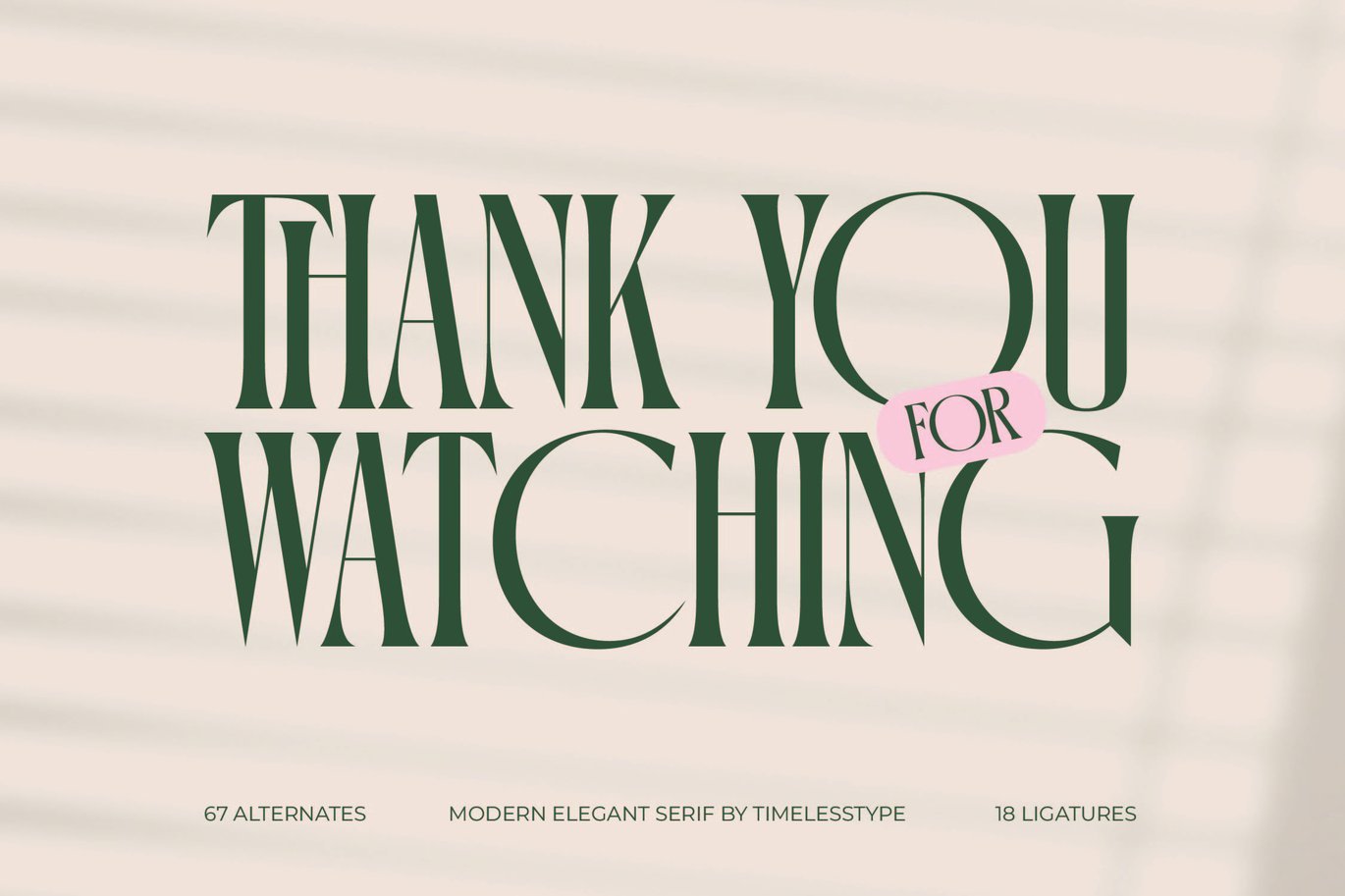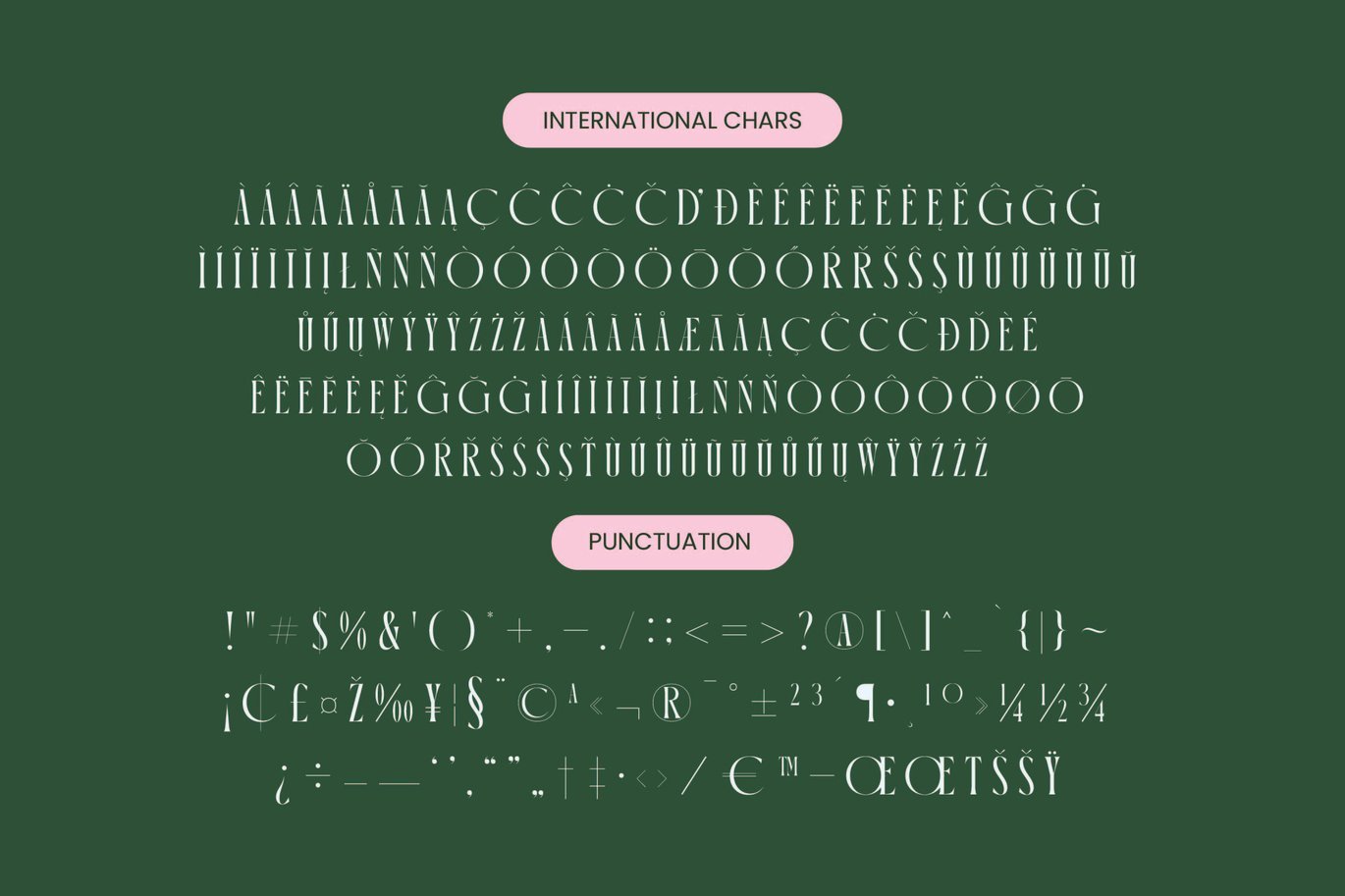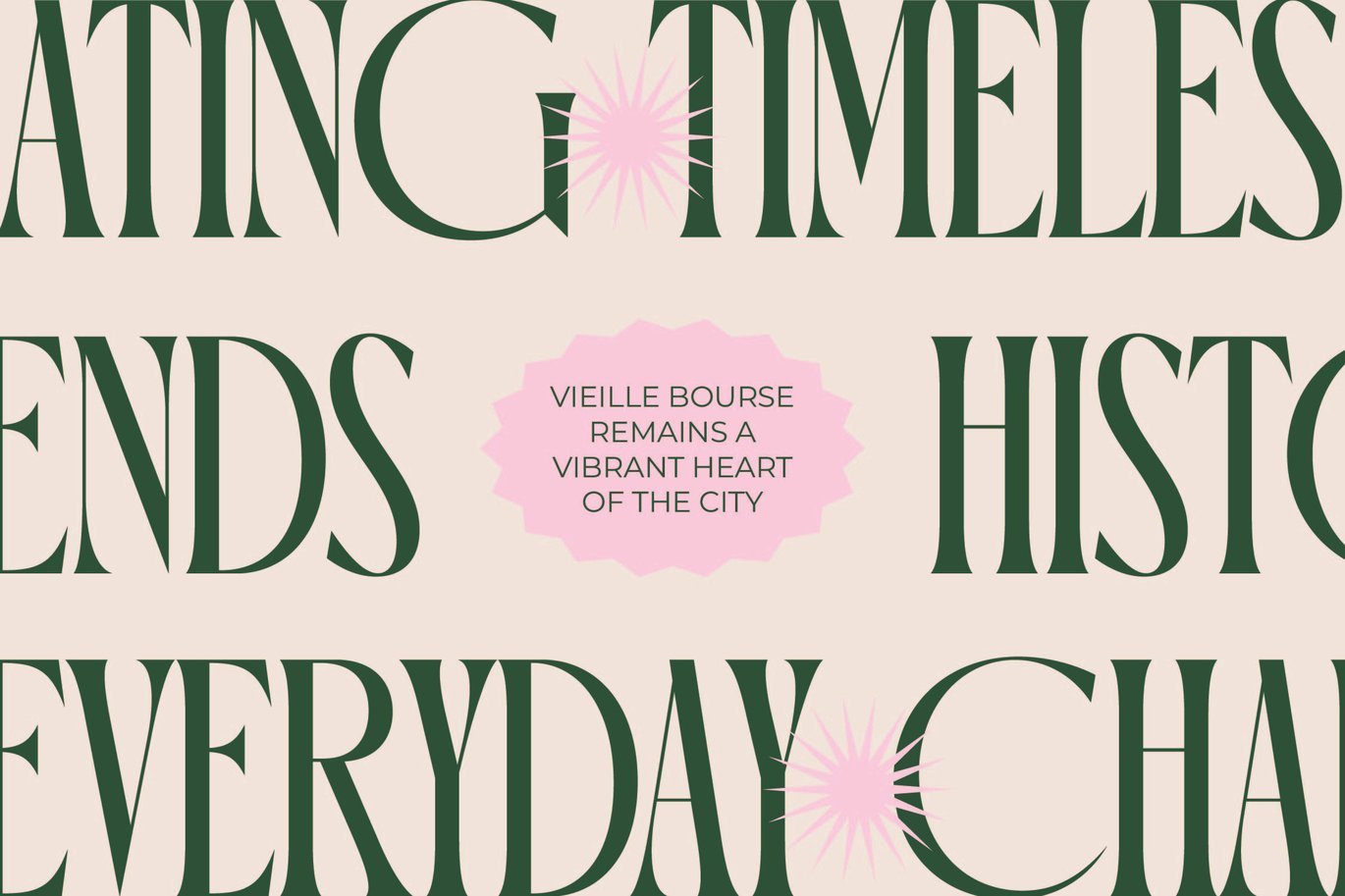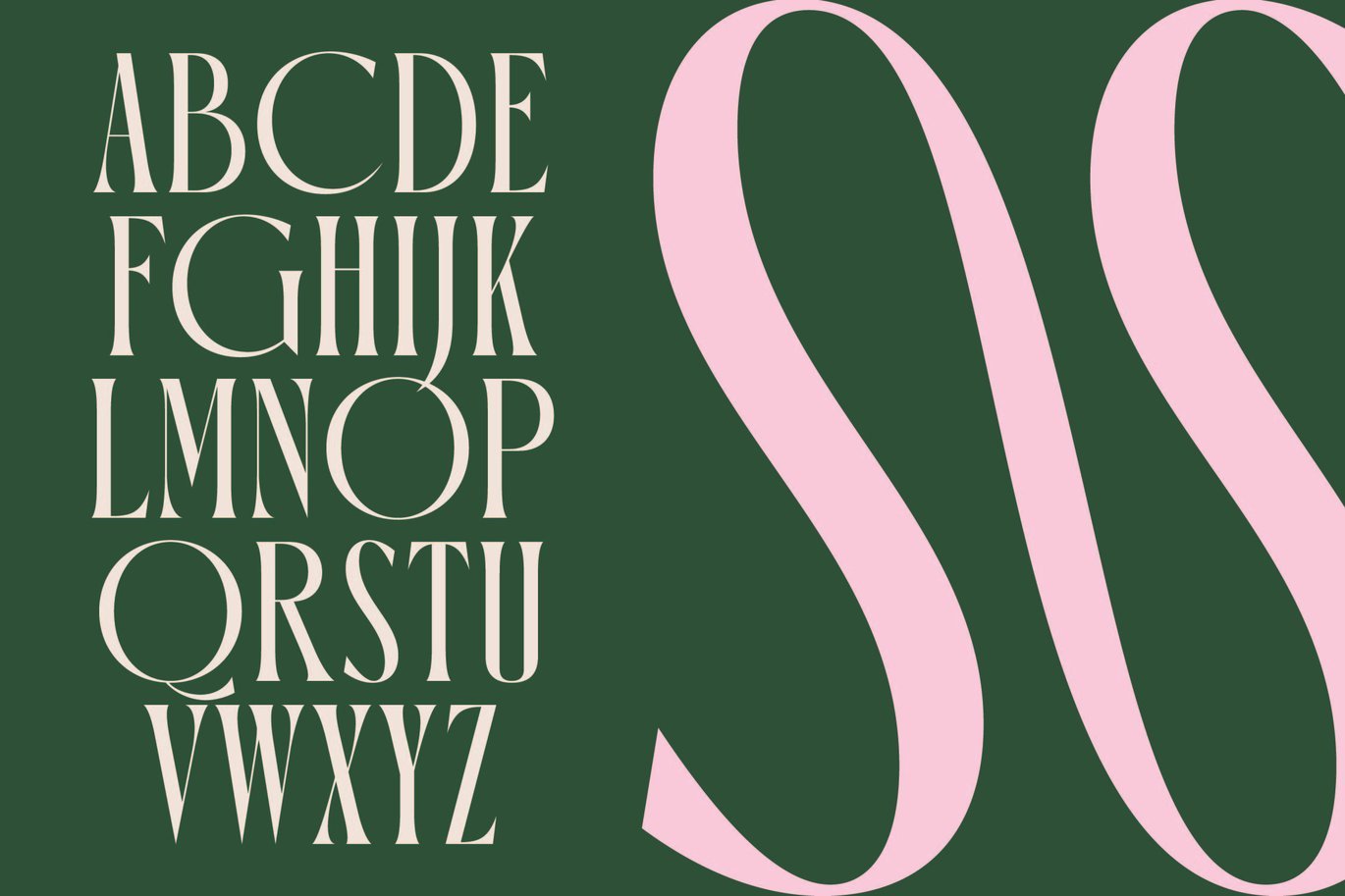
Orleans Brightens – Modern Elegant Serif Font
New Orleans Brightens is a modern elegant serif font that reflects timeless sophistication and effortless class. Featuring 67 alternates and 18 ligatures, this typeface blends high contrast strokes with graceful forms, making it perfect for branding, editorial layouts, luxury packaging, and logo designs.
Its tall, slender proportions and stylish curves evoke a sense of refinement and poise, inspired by the artistic spirit of vintage typography reimagined for the modern age. New Orleans Brightens adds a luxurious statement to any design, from elegant magazines to chic personal branding.